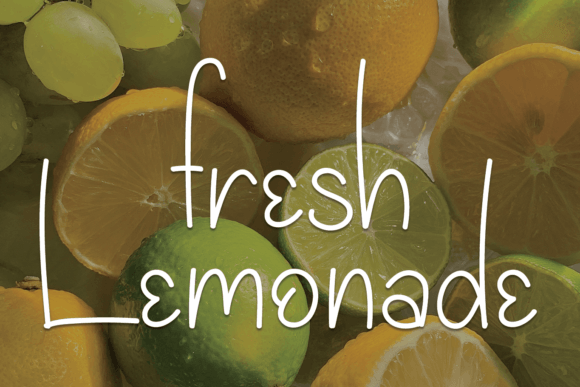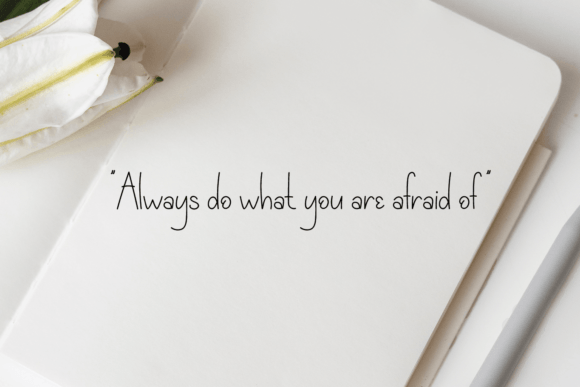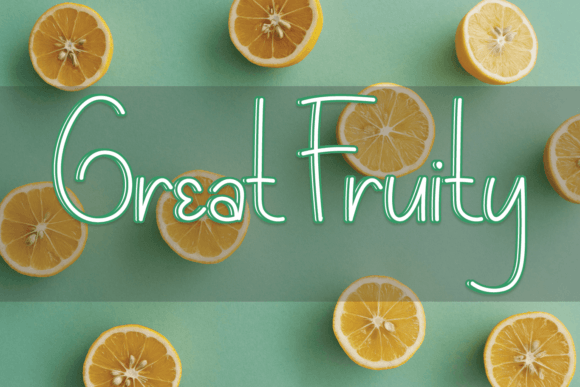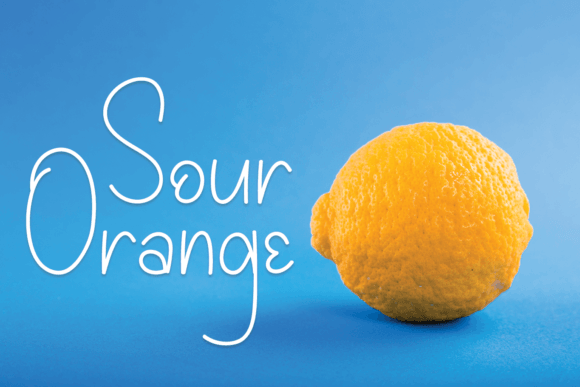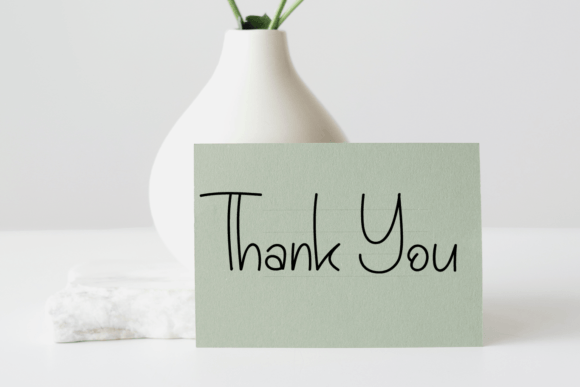
Fresh Lemonade Font
About Fresh Lemonade Font
“Fresh Lemonade” sounds like a cute and simple lettered handwritten font designed for chalkboard quotes or teaching materials. Fonts with these characteristics are often versatile and can add a personal and authentic touch to various design contexts.
The description suggests that “Fresh Lemonade” has an authentic look, making it suitable for designs that aim for a personal and realistic feel. Fonts with these qualities can contribute to creating engaging and relatable visual content.
Consider using “Fresh Lemonade” for chalkboard quotes, educational materials, or any design where a cute and simple handwritten font is desired. Explore how its authenticity can enhance the overall visual appeal and make your designs more relatable.